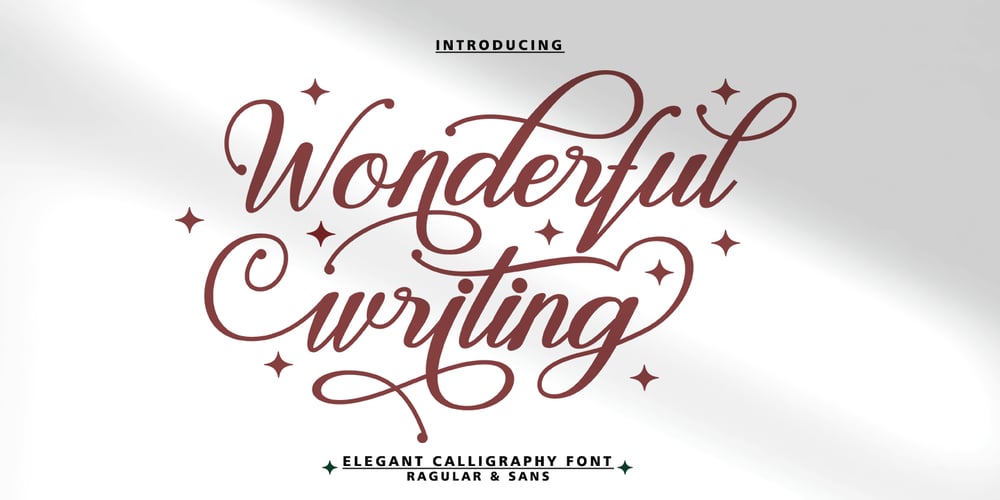
Wonderful Writing Font Family was designed by Rahmad Rizky and published by Rhd Studio. Wonderful Writing contains 2 styles and family package options. Wonderful writting is a calligraphy script font that comes with beautiful alternate characters. copper calligraphy mix in handlettering style. Designed to convey an elegant style. Wonderful writting is attractive because it is smooth, clean, feminine, sensual, glamorous, simple and very easy to read. Its classic style is perfect to apply to all kinds of formal items such as invitations, labels, menus, logos, fashion, make up, stationery, letterpress, romantic novels, magazines, books, greeting/wedding cards, packaging, labels.Wonderful writting features 450+ glyphs and 254 alternate characters. including multiple language support. It features OpenType with alternative styles, binders and character swashes, which allows you to mix and match letter pairs to suit your design, as well as a touch of ornamentation to make this font look elegant.To enable the OpenType Stylistic alternative, you need a program that supports OpenType features such as Adobe Illustrator CS, Adobe Indesign & CorelDraw X6-X7, Microsoft Word 2010 or a later version. There are additional ways to access swashes, using the Character Map (Windows), Nexus Fonts (Windows), Font Books (Mac) or a software program such as PopChar (for Windows and Mac).